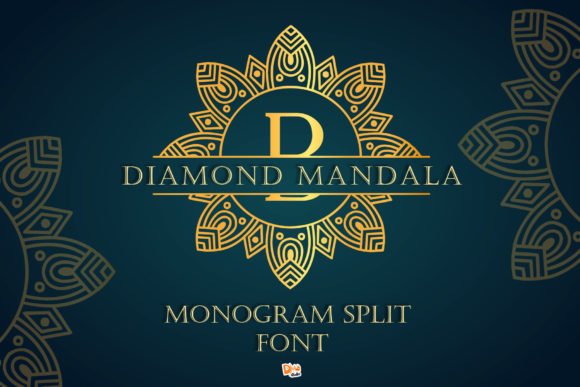
Unlocking Timeless Elegance with the Diamond Mandala Monogram Font
Have you ever stumbled upon an idea that sparks your creativity and refuses to let go? For designers, those moments are what drive us to push the boundaries of innovation and artistry. As you sit at your desk, surrounded by scattered papers and half-finished projects, you catch a glimpse of a majestic font that seems to leap off the page – the Diamond Mandala Monogram Font.
With its unique blend of elegance and sophistication, this font is the perfect addition to any design project. Whether you’re crafting a wedding invitation, a business logo, or a personal art piece, the Diamond Mandala Monogram Font is sure to bring a touch of authenticity and style to your work. For designers, this font is a valuable asset that can elevate even the most mundane projects to new heights.
Diamond Mandala Monogram Font Key Features
- Unique Characteristics: The font features intricate mandala patterns and diamond shapes, adding an element of luxury and sophistication to any design.
- Monogram Support: The font includes a wide range of monogram symbols, making it perfect for creating custom monograms and initials.
- Customization Options: The font allows for easy customization of the mandala patterns and diamond shapes, enabling users to create unique and personalized designs.
Designer Review: Diamond Mandala Monogram Font
Overall, I think the Diamond Mandala Monogram Font is a beautiful and unique addition to any design project. ✨ It’s perfect for adding a touch of elegance and sophistication to invitations, branding, or any other material that requires a high-end feel. ✨ The intricate details and mandala-inspired design make it a standout choice.
One of the things I love about this font is its versatility. ✨ It can be used in a variety of styles, from modern and sleek to traditional and vintage. ✨ The font also works well in both uppercase and lowercase, making it easy to use in a range of applications.
Here are some of the key features that I think make this font shine:
- Beautiful, intricate details
- Unique mandala-inspired design
- High-end feel perfect for luxury brands
- Works well in both uppercase and lowercase
- Very versatile, suitable for a range of styles
While the Diamond Mandala Monogram Font is a great choice for many projects, there are a few limitations to consider:
- May be difficult to read in very small sizes
- Not suitable for large blocks of text
- May require additional design elements to make it stand out
- Can be overwhelming if used too heavily
⚠️ These limitations can be mitigated with careful design and placement, but it’s essential to keep them in mind when using this font.
Overall, I think the Diamond Mandala Monogram Font is a great choice for designers who want to add a touch of elegance and sophistication to their projects. With careful design and placement, it can be a stunning addition to any material. ✨ However, it’s essential to consider the limitations and use it thoughtfully to avoid overwhelming the design. ⚠️
Tips for Getting the Most Out of the Diamond Mandala Monogram Font
Use the font in combination with other design elements, such as shapes and patterns, to create a unique and eye-catching design.
Experiment with different font sizes, colors, and styles to find the perfect combination for your project.